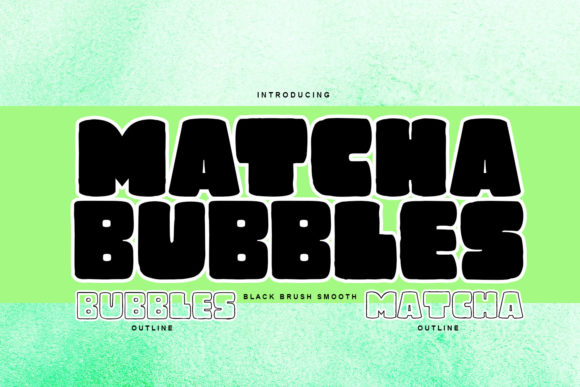
Matcha Bubbles Font
Behold, the extraordinary Matcha Bubbles Font, a creation of jehansyah251, designed to ignite your imagination and transform your designs into captivating masterpieces. This display font exudes a bold and playful personality, perfect for injecting life into magazines, brands, books, comics, kids-related designs, banners, and any project that demands attention.
Unleash the boundless creativity within you as you explore the endless possibilities of Matcha Bubbles Font. Let your imagination run wild as you craft eye-catching headlines, captivating logos, delightful posters, and engaging social media graphics. The possibilities are infinite, limited only by the boundaries of your imagination.
With Matcha Bubbles Font, you'll discover a font that oozes charm and playfulness, adding a touch of whimsy to your designs. Its distinct character adds a unique flair to any project, capturing the attention of your audience and leaving a lasting impression.
Don't settle for ordinary fonts; embrace the extraordinary with Matcha Bubbles Font. Elevate your designs to new heights, captivate your audience, and leave them in awe of your creative genius.